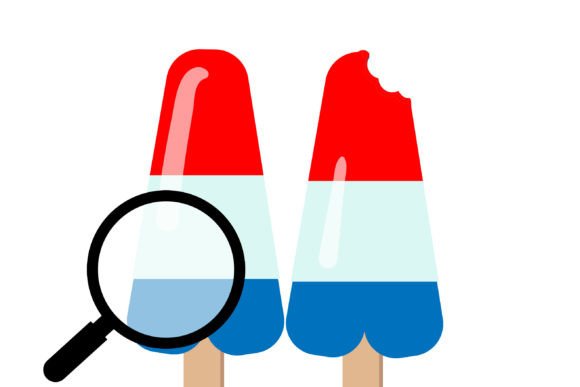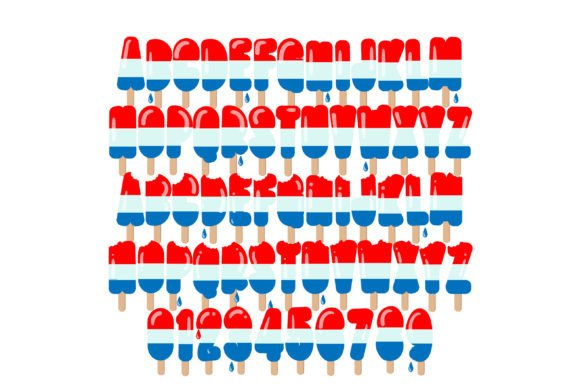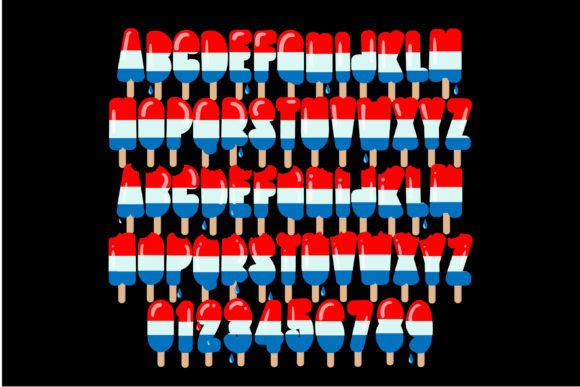
Space Pops Font
About the Space Pops Font
Experience the unique personality of Space Pops Font, a font designed for impact. This full-color font features popsicle style font in a patriotic color palette. This font works best for titles, displays, posters and more. Please note color fonts will show as black in non compatible programs. This font type is compatible with Silhouette Studio.